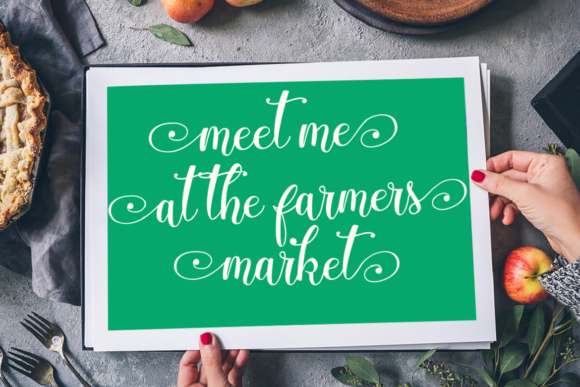
Introducing Dagelan Font: The Elegant and Charming Choice for Designers and Crafters
In the world of typography, fonts play a crucial role in conveying the tone and personality of a design. For designers and crafters looking for a font that exudes elegance and charm, Dagelan Font is an excellent choice. This beautiful handwritten font is perfect for adding a personal touch to various designs, from wedding invitations to business cards.
The Characteristics of Dagelan Font
So, what makes Dagelan Font so special? Here are some of its key characteristics:
- Elegant and Charming: Dagelan Font boasts a sophisticated and charming aesthetic that instantly elevates any design.
- Handwritten Touch: The font’s handwritten style adds a personal and human touch to designs, making them more relatable and engaging.
- Versatile: Dagelan Font is suitable for a wide range of designs, including wedding invitations, thank you cards, quotes, greeting cards, logos, business cards, and more.
Uses of Dagelan Font
Due to its versatility and aesthetic appeal, Dagelan Font can be used in various design projects. Here are some ideas:
- Wedding Invitations: Add a touch of elegance to your wedding invitations with Dagelan Font. It’s perfect for formal and informal wedding designs.
- Thank You Cards: Express your gratitude with beautifully designed thank you cards featuring Dagelan Font.
- Quotes and Greeting Cards: Use Dagelan Font to add a personal touch to inspirational quotes and greeting cards.
- Logos and Business Cards: Create a lasting impression with Dagelan Font on your business cards and logos.
Why Designers and Crafters Love Dagelan Font
Designers and crafters adore Dagelan Font for several reasons:
- Easy to Read: The font’s clear and legible design ensures that your message is conveyed effectively.
- Customizable: Dagelan Font can be easily customized to fit your design needs, making it a versatile choice.
- Unique: The font’s distinctive style sets it apart from other fonts, allowing you to create unique and eye-catching designs.
Tips for Using Dagelan Font Effectively
To get the most out of Dagelan Font, follow these tips:
- Pair with Other Fonts: Combine Dagelan Font with other fonts to create visually appealing and harmonious designs.
- Experiment with Colors: Try different color combinations to find the perfect match for your design.
- Play with Sizes: Experiment with different font sizes to add emphasis and create visual hierarchy.
In conclusion, Dagelan Font is an excellent choice for designers and crafters looking for an elegant and charming font. Its versatility, aesthetic appeal, and ease of use make it perfect for a wide range of design projects. Whether you’re creating wedding invitations, business cards, or greeting cards, Dagelan Font is sure to add a touch of sophistication and personality to your designs.